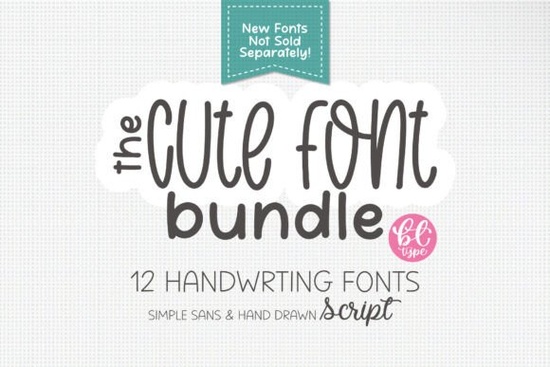
If you’ve ever scrolled through handwritten fonts looking for that perfect blend of charm and legibility, you know how hard it can be to find a collection that feels both cohesive and versatile. That’s where The Cute Handwriting Bundle Font comes in a thoughtfully curated set of 12 exclusive handwritten typefaces designed to bring warmth and personality to everything from greeting cards to product labels.
Unlike many font bundles that repurpose existing designs, every font in this collection is created specifically for the bundle and isn’t sold individually anywhere else. This makes it a smart pick if you’re building a library of unique assets for your small business, print-on-demand shop, or personal crafting projects.
What kinds of projects work best with these fonts?
Handwritten fonts shine when you want your design to feel personal and approachable. Think:
- Custom wedding invitations or party signage
- Branded packaging for handmade goods
- Social media quotes or digital planners
- Journal headers, scrapbook titles, or sticker designs
Because the bundle includes a range of styles from delicate script to bouncy casual lettering you can mix and match within the same project without clashing. For example, pair a flowing style like Halimun for headlines with something more grounded like Gadiani for supporting text.
How does this bundle compare to other script fonts?
Many popular script fonts lean heavily into either elegance or playfulness but rarely both. The Cute Handwriting Bundle strikes a balance. Fonts like Angela offer soft, rounded terminals that feel friendly without being childish, while OurStory gives you both regular and alternate character sets so you can avoid repetitive letterforms in longer phrases.
If you’ve used marker-style fonts before (like Swift Marker), you’ll appreciate how these fonts maintain that hand-drawn authenticity but with smoother curves and better spacing ideal for both print and screen use.
Are these fonts easy to use for beginners?
Most also include basic OpenType features like automatic ligatures, so common letter pairs (like “th” or “st”) connect naturally without manual tweaking. You don’t need advanced typography skills to get great results just type and go.
How do I choose which font to use when?
Here’s a quick guide based on mood and medium:
- For cozy, everyday vibes: Try Angela or OurStory they read well at small sizes and feel inviting.
- For bold, expressive headlines: Swift Marker (if you already own it) has great energy, but within the bundle, look for fonts with varied stroke widths and slight bounce.
- For elegant but not formal: Halimun offers graceful ascenders and subtle swashes perfect for gift tags or boutique branding.
Remember: less is often more. Stick to one or two fonts per project to keep your message clear and visually harmonious.